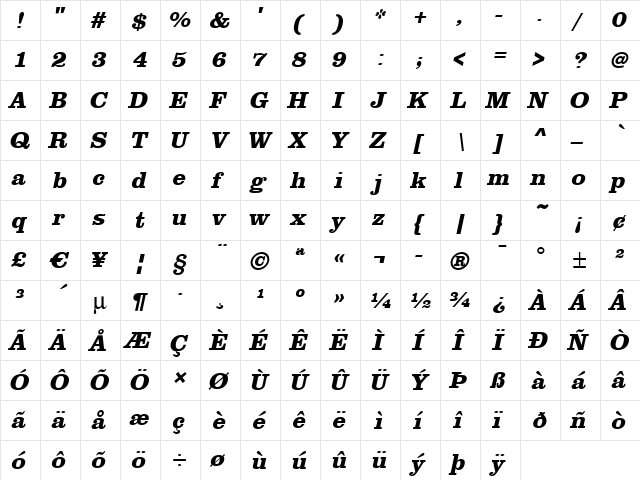
PaulineBecker Bold Italic
Design Context for PaulineBecker Typeface
PaulineBecker offers clean, dependable letterforms without strong stylistic allegiance, making it a practical choice for designers who need flexibility. The slanted form adds forward momentum and visual energy. Its bold stroke weight gives it real presence on the page.
Pro Tip: Try PaulineBecker for annotation and caption copy alongside an upright companion — the contrast in angle creates a dynamic but ordered typographic system.